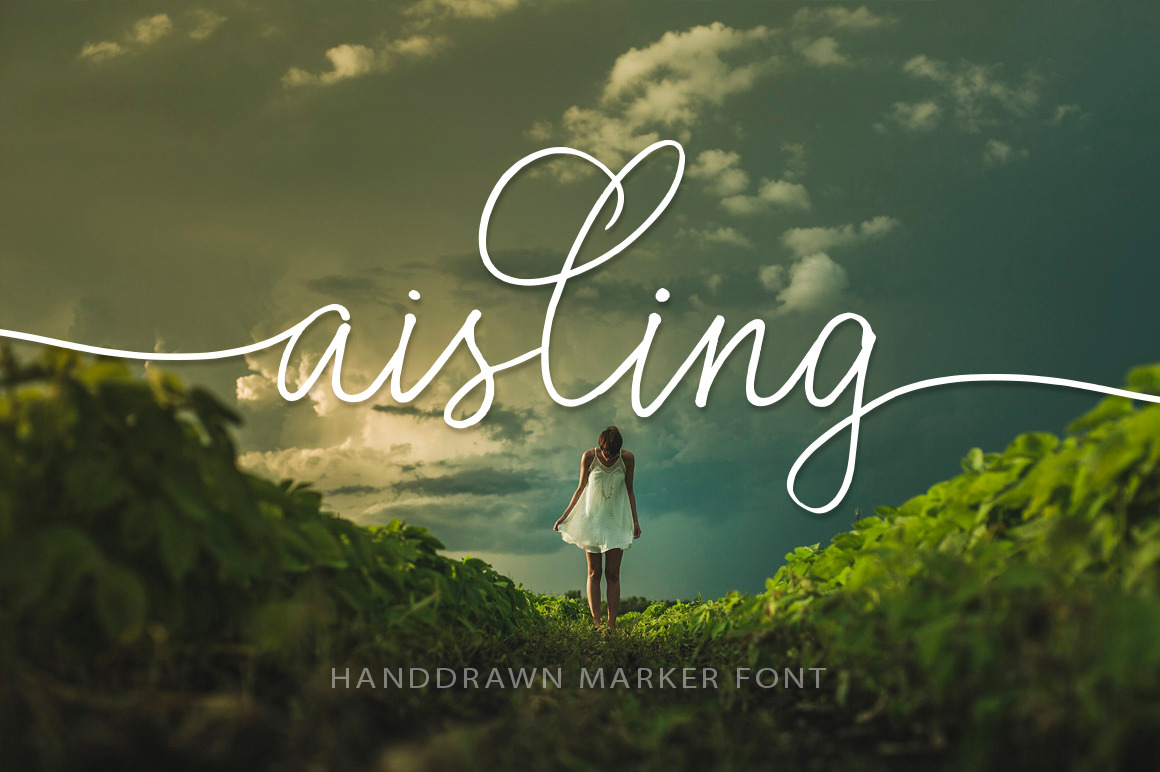
Aisling is a beautiful script font with Irish character.
3 variants of letters for the uppercase and 7 variants of letters for the lowercase, make this font an unique tool for creating handdrawn texts, which are written with a brush and ink.